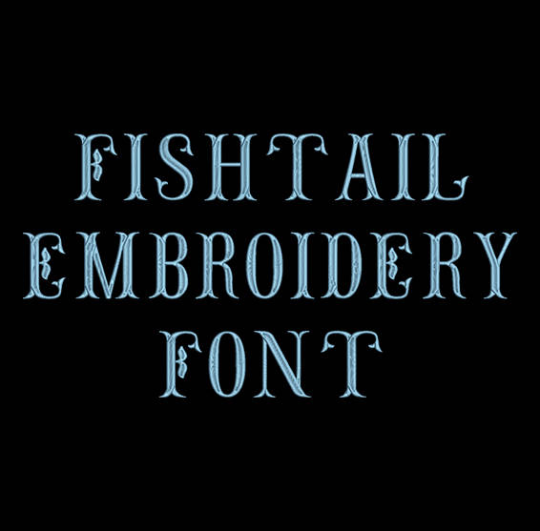
Machine Embroidery Font - Fishtail Font
Title: Fishtail Machine Embroidery Font
This Fishtail font is perfect for personalizing clothes, bags, towels and linens!
This beautiful font would look amazing as a Monogram on Totes, School bags and purses!